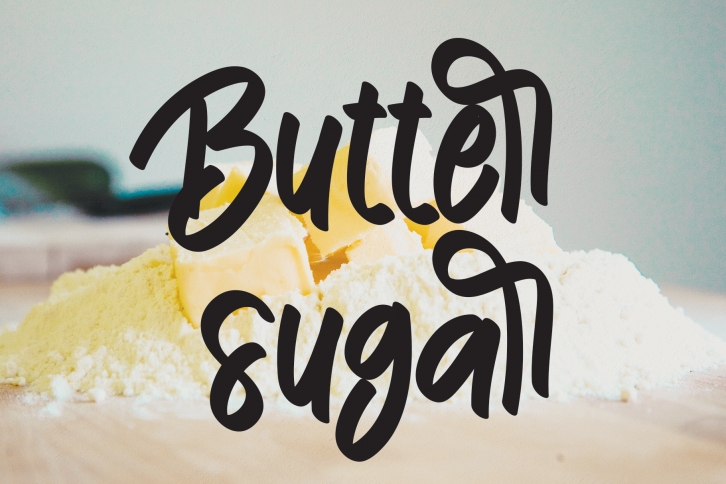
Butter Sugar is a chic and relaxed handwritten font. Whatever the topic, this font will be a wonderful asset to your font library, as it has the potential to enhance any creation.